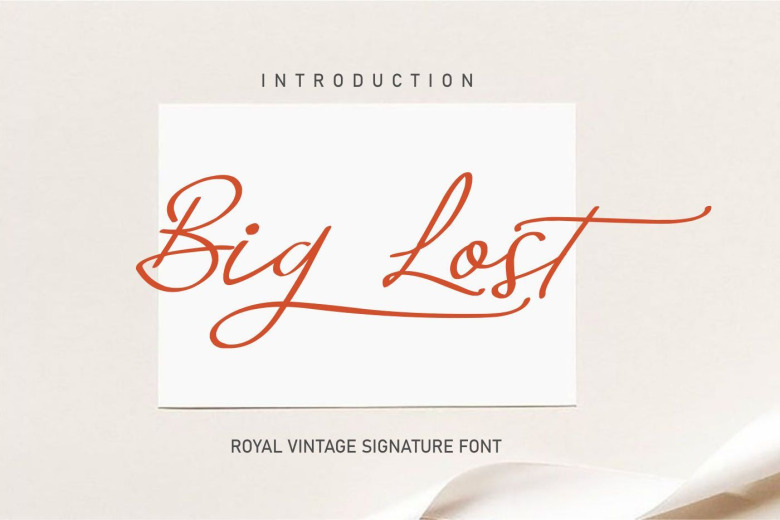
Big Lost Royal Vintage Signature Font
Big Lost Royal Vintage Signature Font is a sweet, soft hand-lettered handwritten typeface. This type of font perfectly made to be applied especially in headlines which is need a standout font, and the other various formal forms.
Fall in love with its authentic feel and use it to create gorgeous wedding invitations, beautiful stationary art, eye-catching social media posts, and cute greeting cards. This font is free for PERSONAL USE. Link to purchase full version and commercial license: HERE